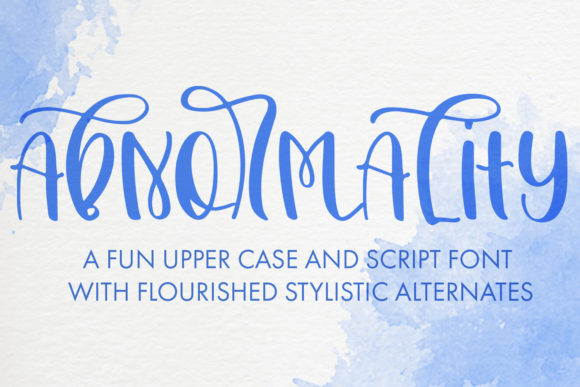
The Abnormality Font: A Timeless Handwritten Treasure
I’ll never forget the moment I stumbled upon the Abnormality font. I was working on a wedding invitation project for a dear friend, and I was struggling to find the perfect handwritten font that would capture the elegance and whimsy of the occasion. As soon as I laid eyes on Abnormality, I knew I had found the one. Its delicate, cursive strokes and timeless charm instantly won me over, and I’ve been hooked ever since.
• ✨ Delicate, cursive strokes that exude elegance and sophistication
• ✅ Extensive character set, including OpenType features and glyphs
• ✅ Perfect for a variety of design projects, from wedding invitations to business cards
• ⚠️ Some users may find the font a tad too delicate for certain design applications
• ⚠️ Limited availability of stylistic alternates, which may limit creative flexibility
The Story Behind Abnormality: A Designer Inspiration
Abnormality was designed with the intention of creating a timeless, handwritten font that would capture the essence of elegance and sophistication. The designer’s goal was to craft a font that would be both delicate and legible, making it perfect for a variety of design applications. While the true story behind Abnormality remains a mystery, its beauty and charm have captured the hearts of designers and crafters alike.
Q: What is the best use for the Abnormality font?
A: Abnormality is perfect for designs that require a handwritten touch, such as wedding invitations, thank you cards, quotes, greeting cards, logos, and business cards.
Q: Is Abnormality a script font?
A: While Abnormality has script-like qualities, it is technically a handwritten font with a more delicate and cursive feel.